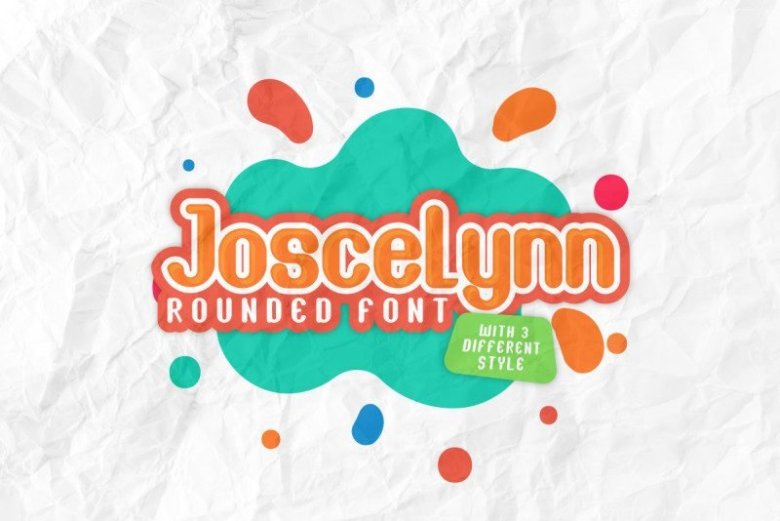
Joscelynn Fun Font
What’s up Everyone! Introducing our newest font : Joscelynn ! This is a fun comic unusual non formal typeface. It has new unique style glyph . It has a fresh, elegant, natural and stylish glyphs. Will be great for comic, toddler, cartoon, illustration, cover branding, logo, stationery, business card, signage, flyer, brochure etc. There are many industries that is suitable for this font : school, education, games, cleaning, entertainment etc